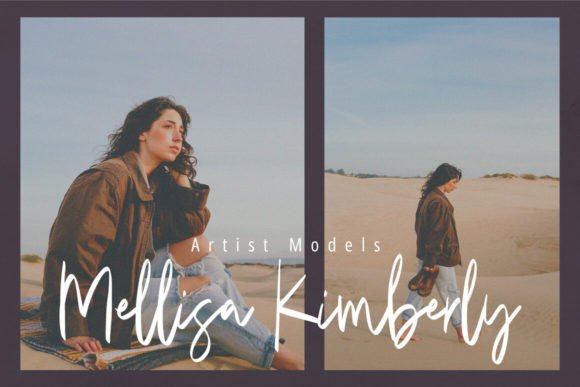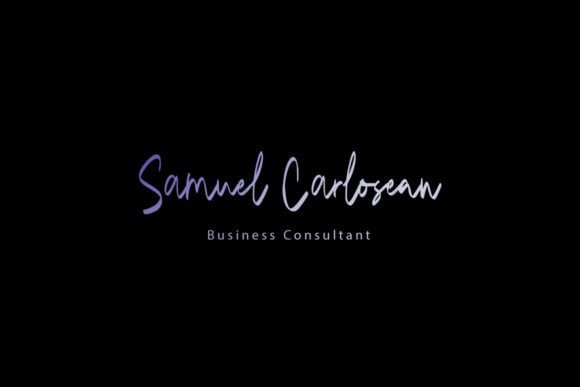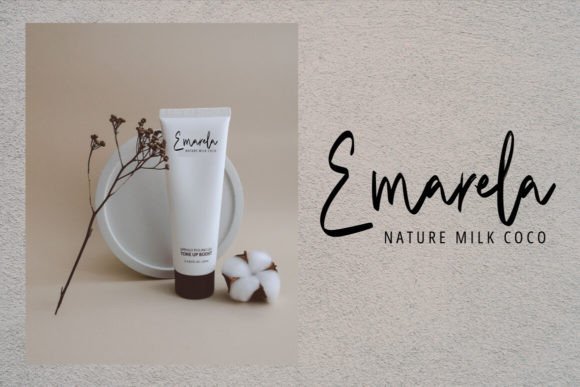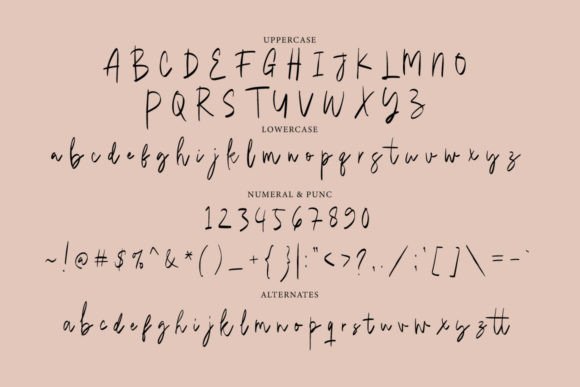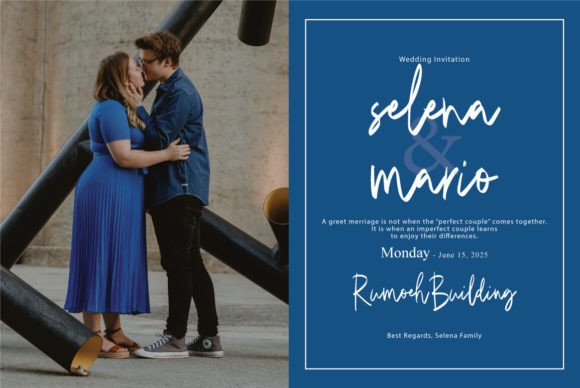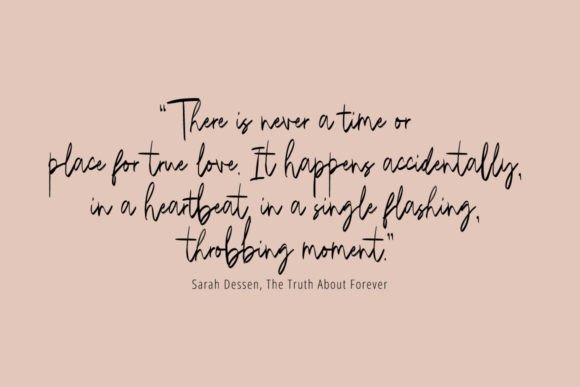
Introducing Balemy Font: Elevate Your Designs with Handmade Calligraphy Style
In the world of digital design, fonts play a crucial role in conveying the tone and aesthetic of a brand or project. For designers and crafters looking to add a touch of elegance and sophistication to their work, Balemy Font is an excellent choice. This beautiful font features a handmade calligraphy style, decorative characters, and a dancing baseline that will make your designs stand out.
What Makes Balemy Font Special?
Balemy Font is a unique and versatile typeface that boasts a range of characteristics that set it apart from other fonts. Its handmade calligraphy style gives it a warm, organic feel that’s perfect for creating inviting and engaging designs. The decorative characters add an extra layer of flair, allowing you to add personality and whimsy to your projects.
One of the standout features of Balemy Font is its dancing baseline. This means that the letters don’t follow a straight line, but instead have a subtle movement and flow to them. This creates a sense of energy and dynamism, making your designs more visually appealing and engaging.
Balemy Font is incredibly versatile and can be used for a wide range of design projects. Here are some ideas to get you started:
- Greeting Cards: Add a personal touch to your greeting cards with Balemy Font’s beautiful, handwritten style.
- Branding Materials: Use Balemy Font to create a cohesive brand identity that exudes elegance and sophistication.
- Business Cards: Make a lasting impression with Balemy Font’s unique and eye-catching style.
- Quotes: Add a touch of inspiration and motivation to your quote designs with Balemy Font’s beautiful calligraphy.
- Posters: Create stunning posters that showcase Balemy Font’s decorative characters and dancing baseline.
Why Designers and Crafters Love Balemy Font
Designers and crafters love Balemy Font for its unique blend of elegance and playfulness. Here are some reasons why:
- Customization: With a range of decorative characters and swashes, you can customize Balemy Font to suit your design needs.
- Unique Style: Balemy Font’s handmade calligraphy style and dancing baseline make it a standout from other fonts.
Tips for Using Balemy Font Effectively
To get the most out of Balemy Font, here are some tips for using it effectively:
- Pair with Other Fonts: Combine Balemy Font with other fonts to create a unique and visually appealing design.
- Pay Attention to Spacing: Make sure to adjust the spacing between letters and words to create a cohesive and balanced design.
Balemy Font is a beautiful and versatile typeface that’s perfect for designers and crafters looking to add a touch of elegance and sophistication to their work. With its handmade calligraphy style, decorative characters, and dancing baseline, Balemy Font is sure to make your designs stand out. Whether you’re creating greeting cards, branding materials, or posters, Balemy Font is an excellent choice.